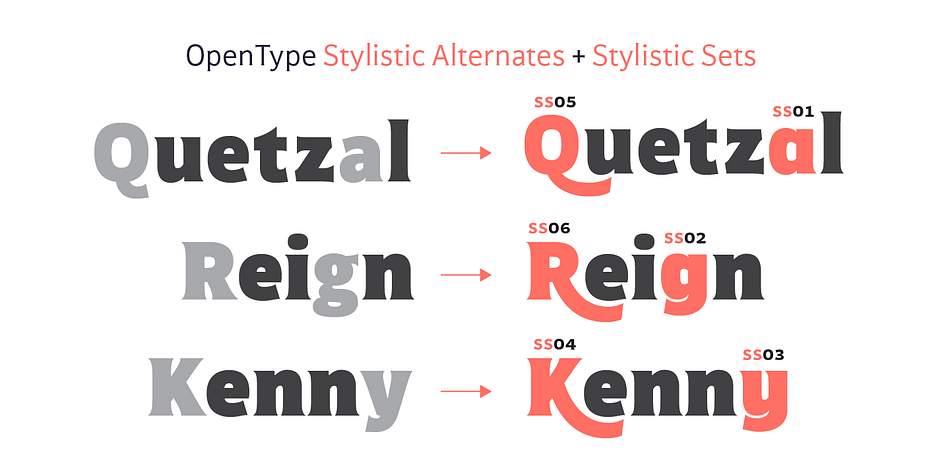
Mondo
Designed by Rodrigo Fuentes, Mondo is a display sans and sans serif font family. This typeface has twenty styles and was published by Untype.
Mondo is essentially a contemporary typeface with vintage clothing, the incise terminals and the humanist ductus brings some of the classical dignity of the lettering tradition to an essentially modern typeface.
On the middle weights Mondo is a sans with slightly condensed proportions, build with modular regularity and special care for low tension on the curves, which offers a very even texture and a sense of quietness and balance to long text settings. On the extreme weights the eye is attracted by the accentuated terminals, the vertical rhythm, the ink traps, alternates, ligatures and the plenty of other details included, thats why Mondo is an excellent choice for headlines and display use when a contemporary typeface with a deep sense of dignity is needed.